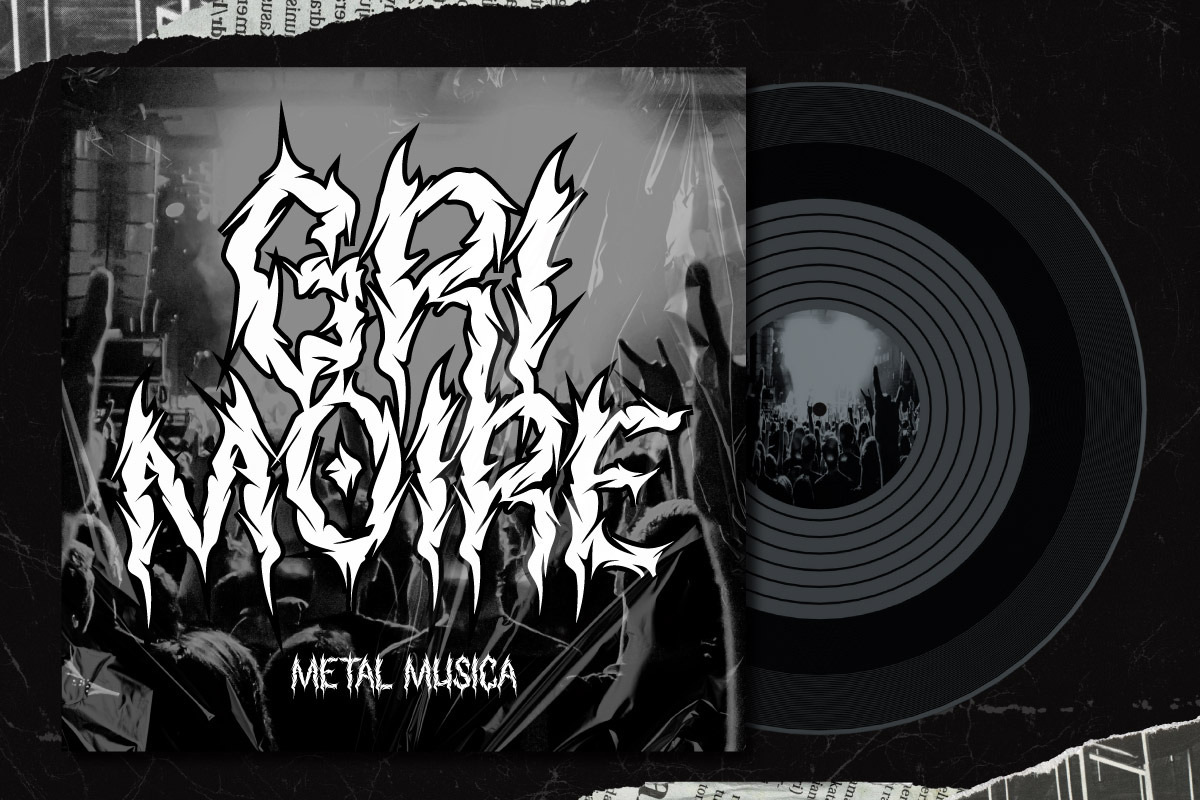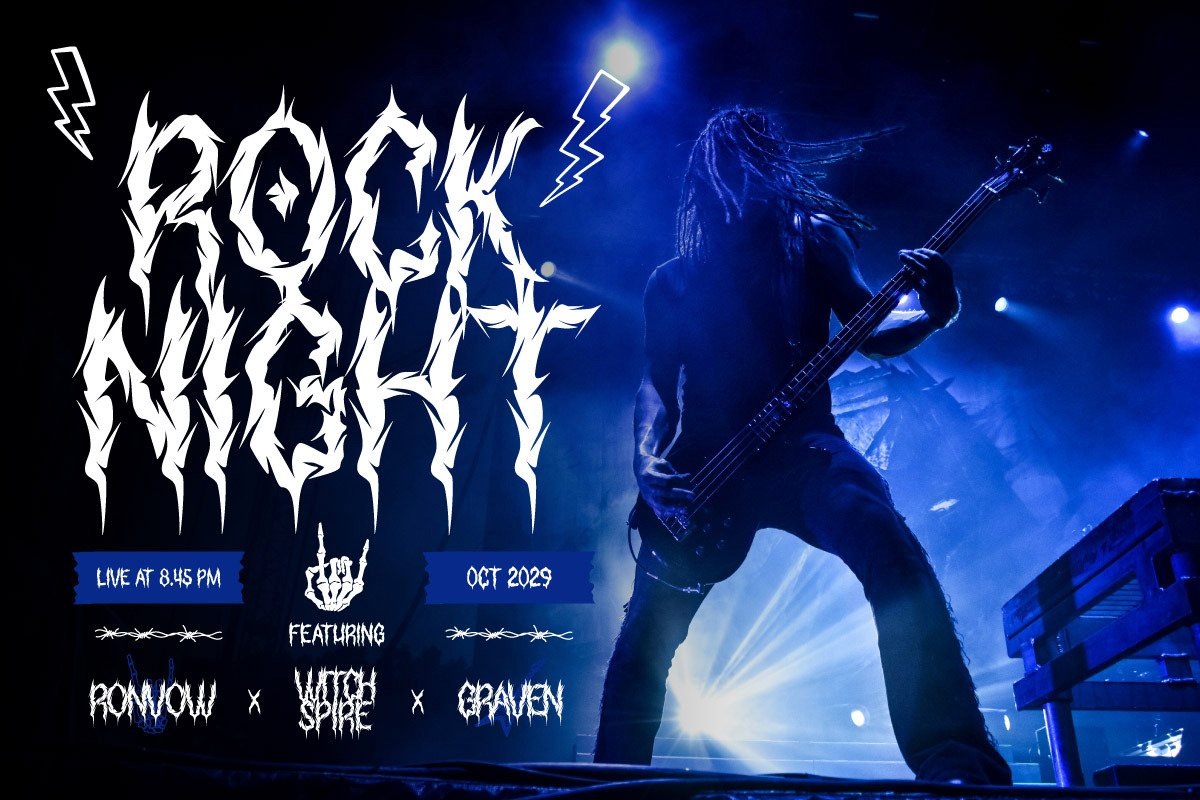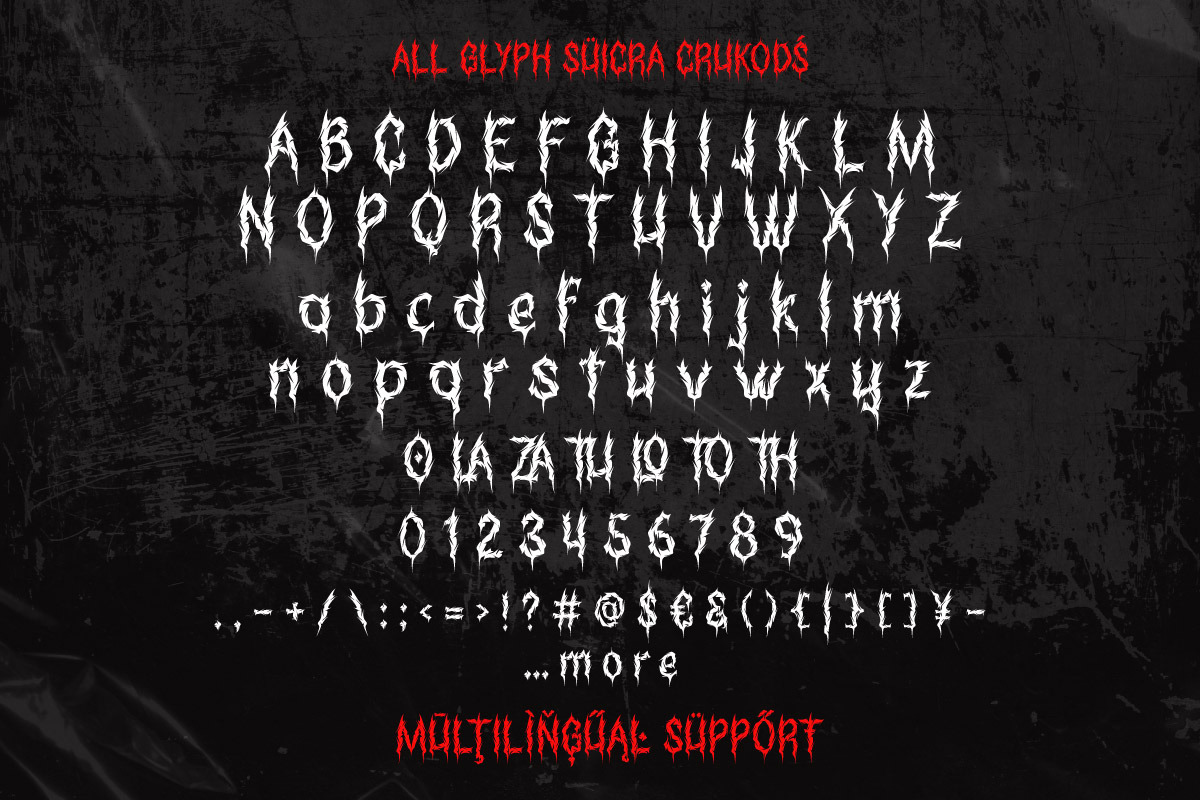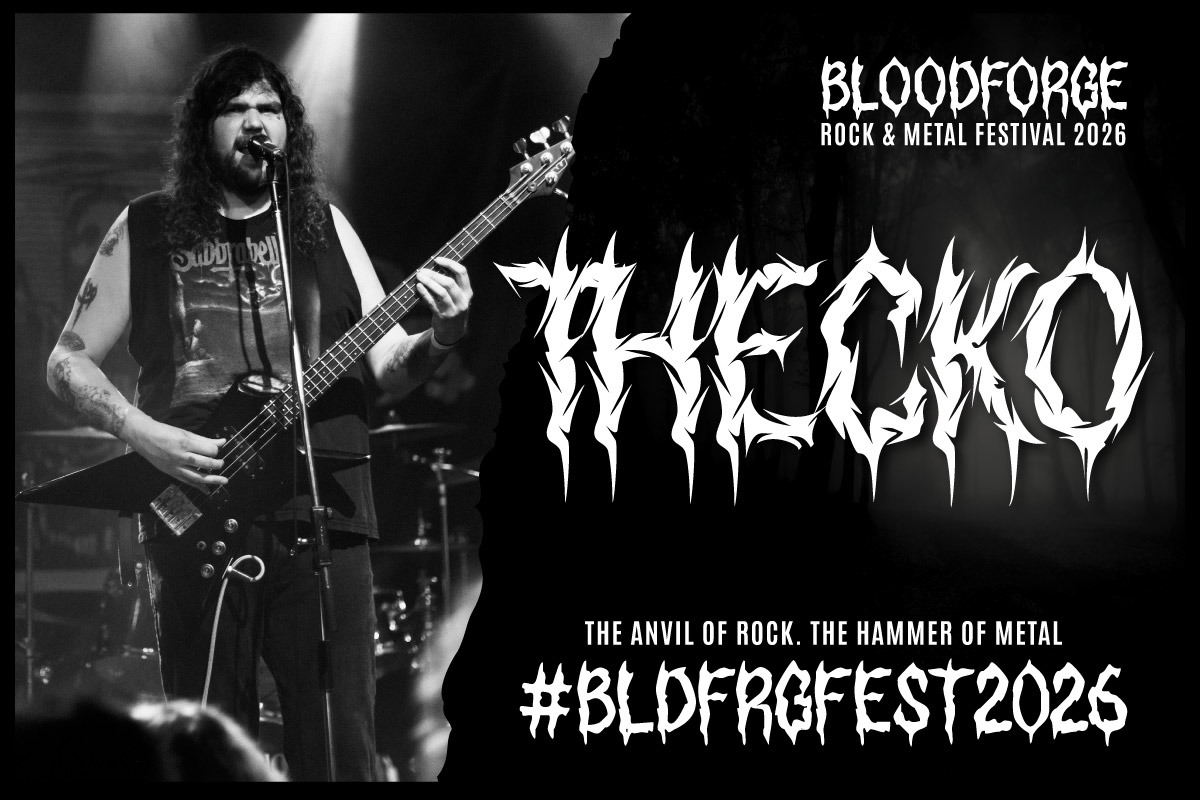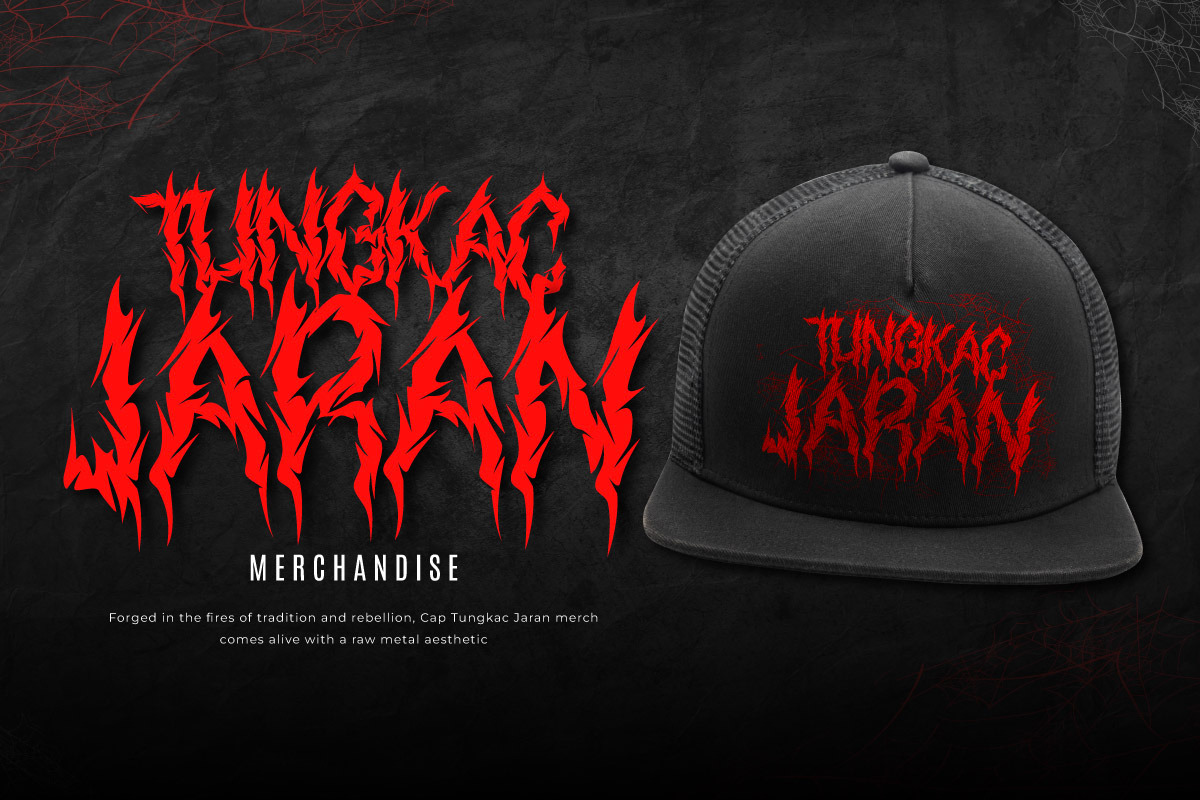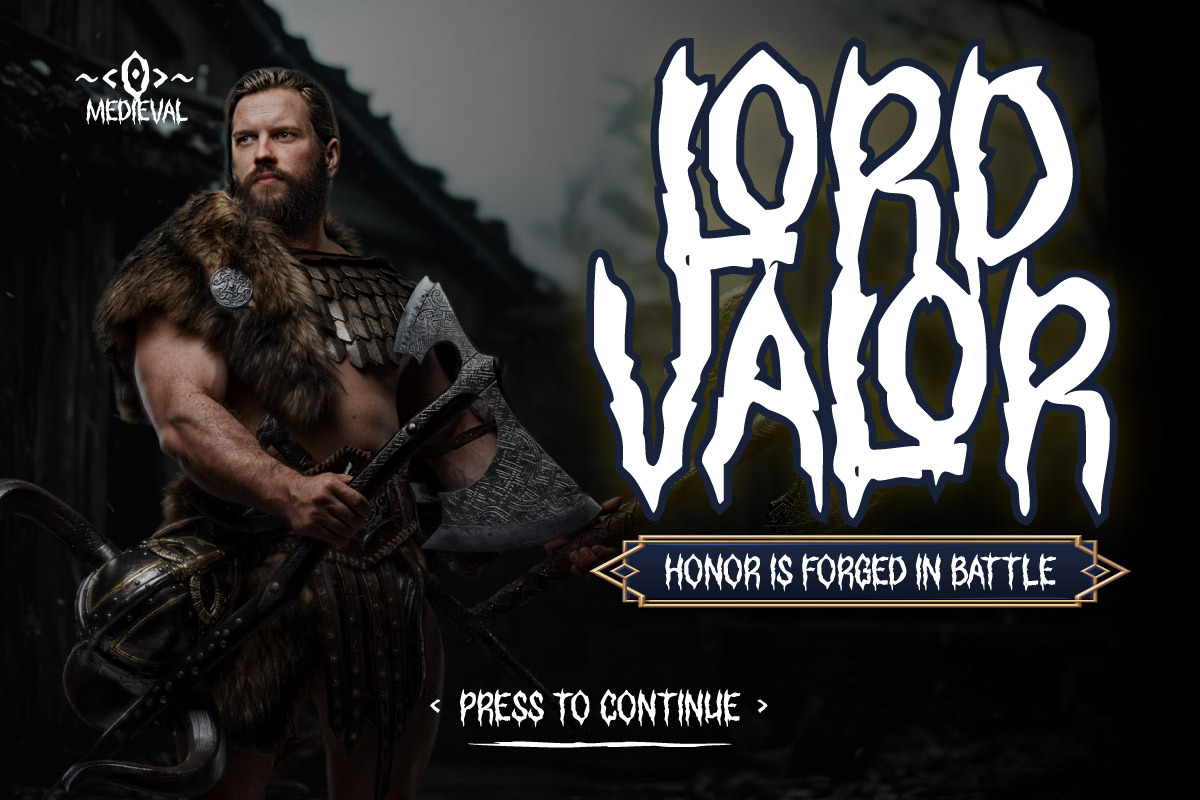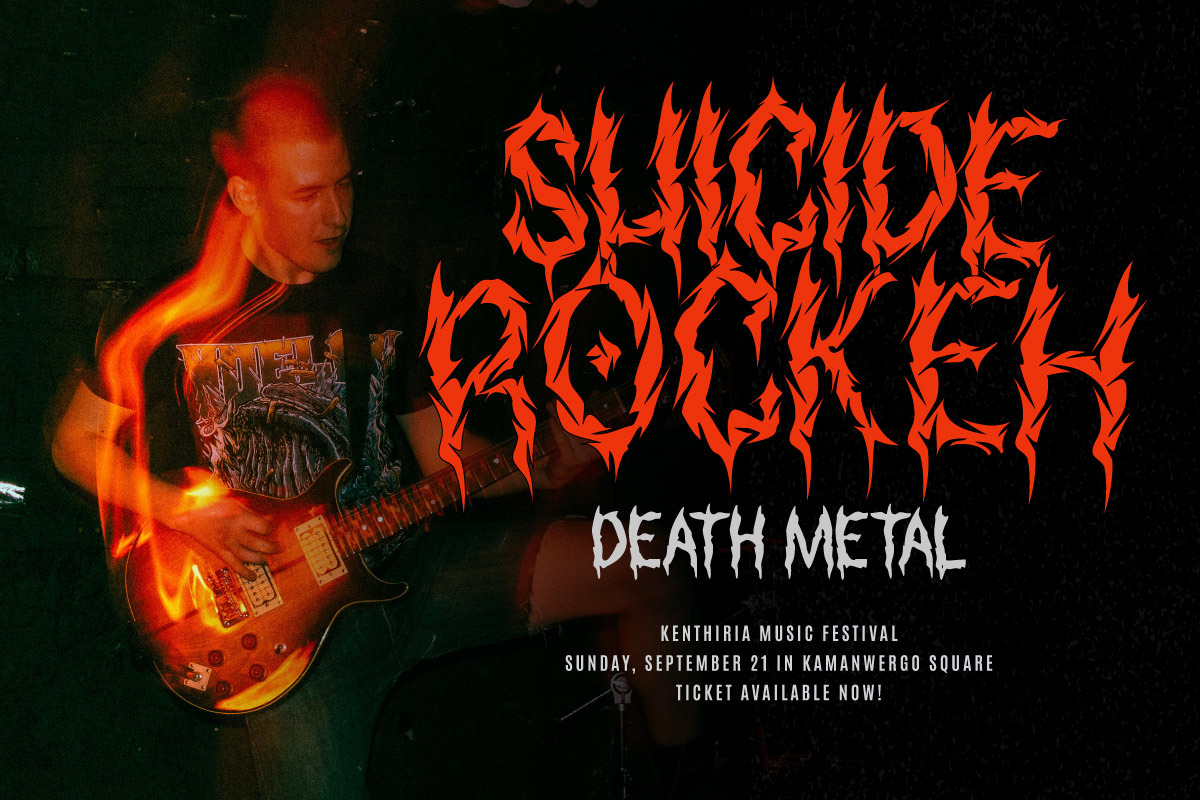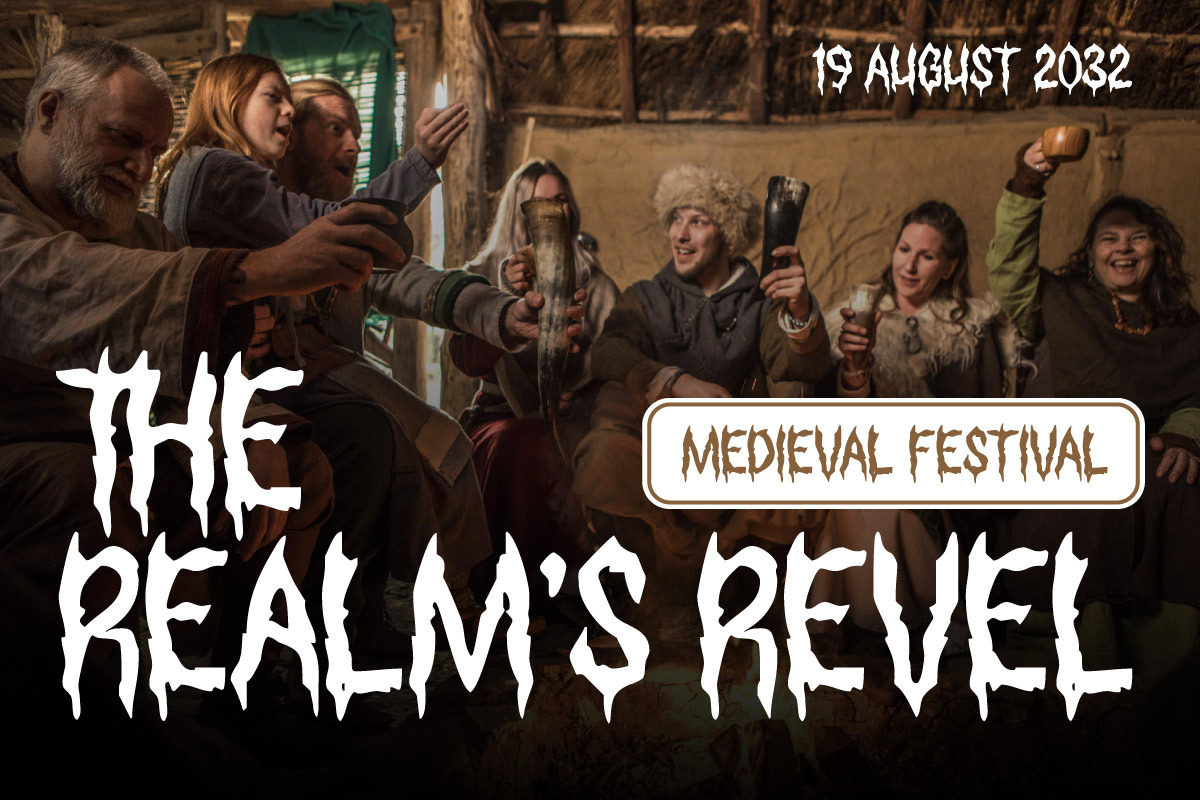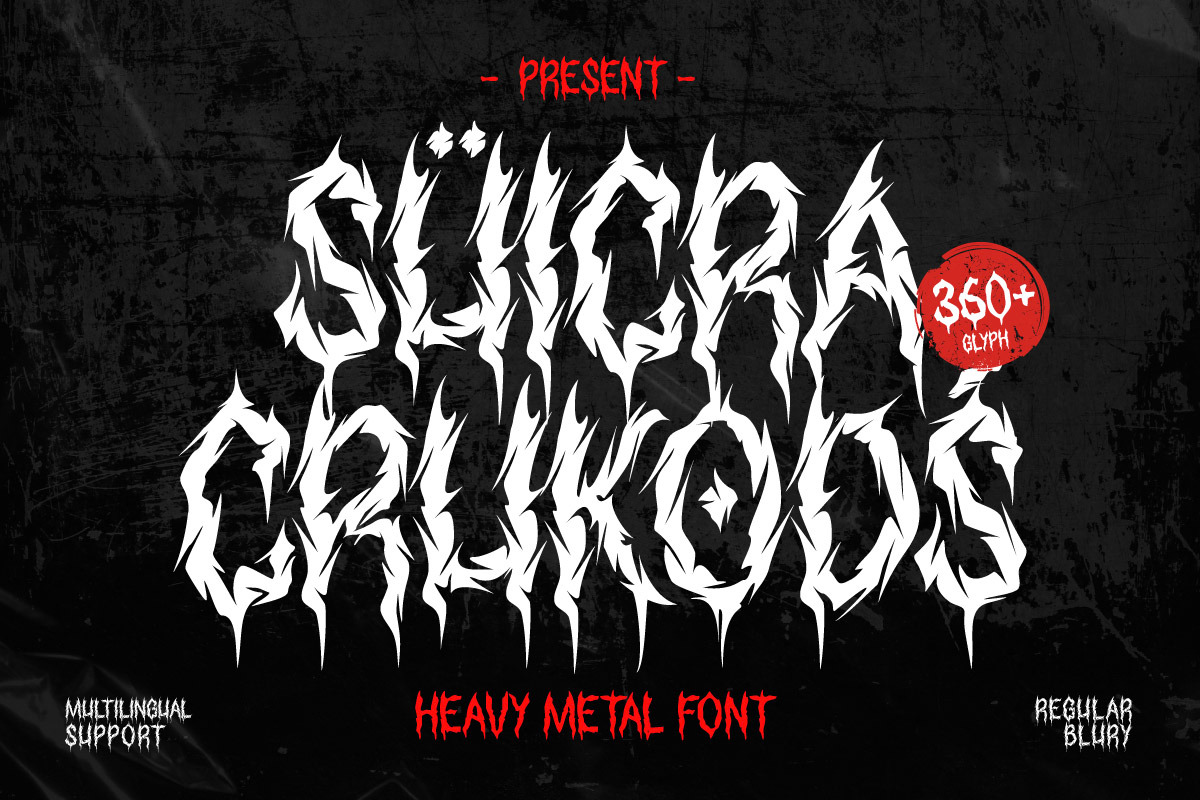
Suicra Crukods - Heavy Metal Font
Unleash raw power and rebellious spirit with Suicra Crukods, a heavy metal display font designed to dominate and electrify. Featuring sharp edges, aggressive strokes, and bold structures, this font perfectly captures the energy of the metal scene. Whether you’re creating band logos, album covers, event posters, or edgy merchandise, Suicra Crukods brings an intense, unforgettable vibe to your designs.
This font is not just bold—it’s brutal, loud, and unapologetically fierce. Suicra Crukods is built for creators who dare to push boundaries and want to inject their work with a hardcore, underground feel. Perfect for rock, punk, and heavy metal projects that need to stand out and scream for attention.